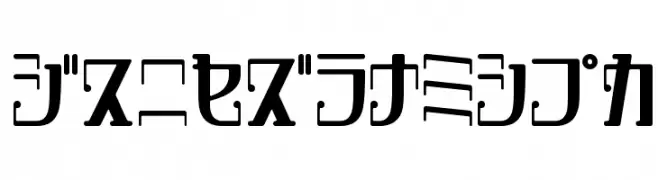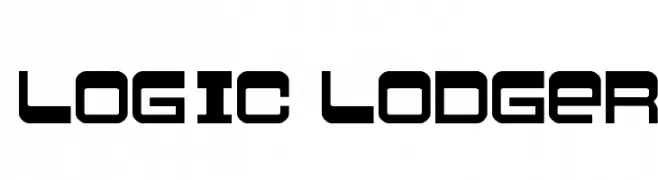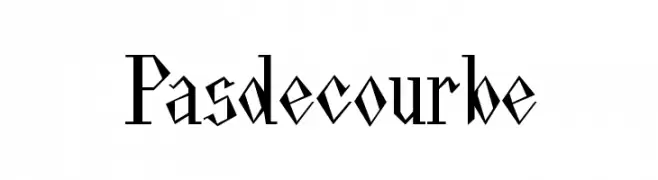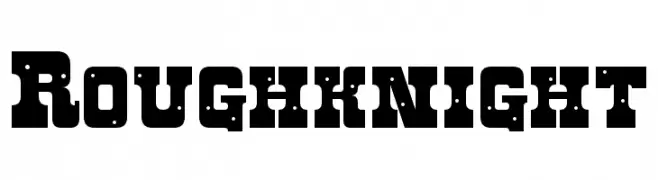
A bold, angular font with a modern, geometric style.
A bold, geometric font with a futuristic and mechanical design.
A bold, industrial-style font with mechanical elements and decorative cutouts.
A bold, playful font with rounded edges and a modern, approachable style.
A bold, geometric font with sharp angles and a modern aesthetic.
A bold, textured typewriter-style font with a vintage, mechanical feel.
A bold, hand-drawn font with a playful and artistic style.